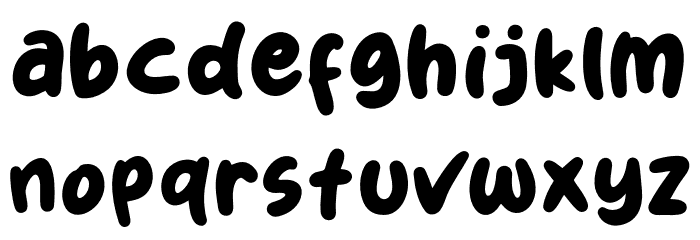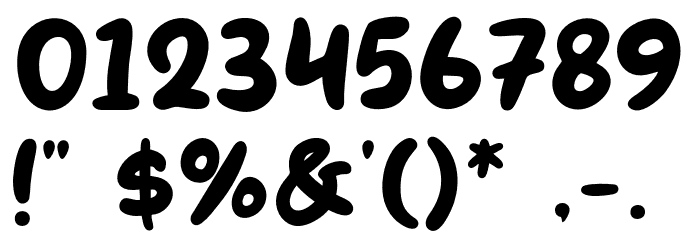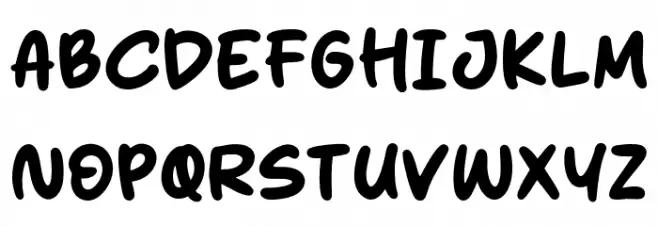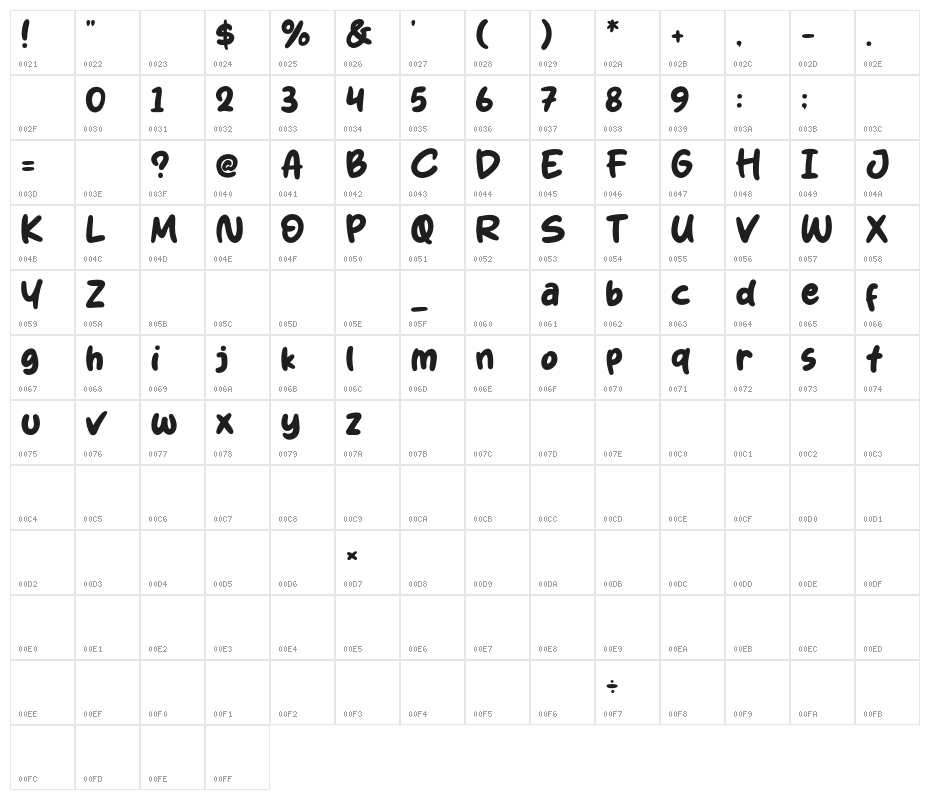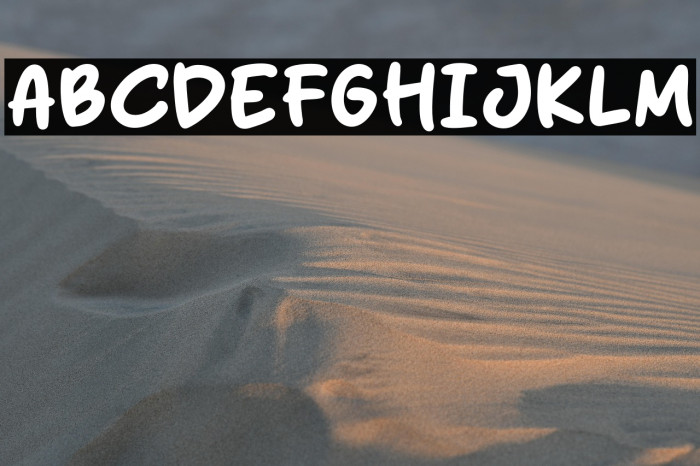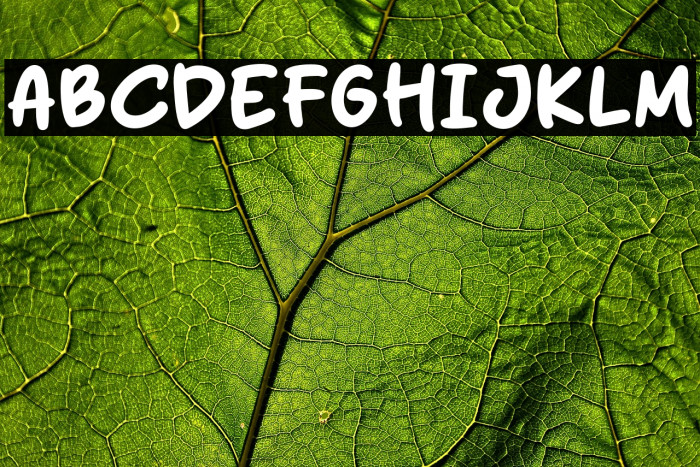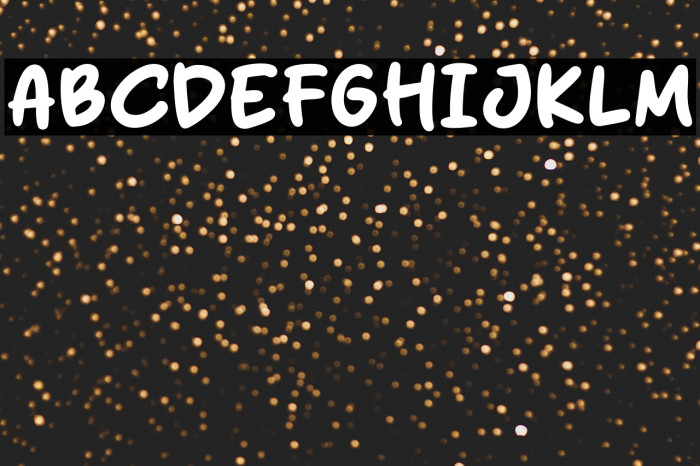
Delight Purple Font
This playful and bold font features rounded, bubbly characters that convey a sense of fun and creativity. The letters are thick and have a slightly irregular shape, giving them a hand-drawn appearance. The uppercase and lowercase letters maintain a consistent style, with a smooth flow and rounded edges. The numbers and special characters are equally bold and maintain the playful aesthetic. This font is perfect for projects that require a lively and informal touch, such as children's books, party invitations, or playful branding.
A playful, bold font with rounded, hand-drawn characters.
- Font: Delight Purple
- Proposed Projects: Ideal for children's books, party invitations, playful branding, and creative posters.
- Category: Handwritten
- Overall Style: Playful